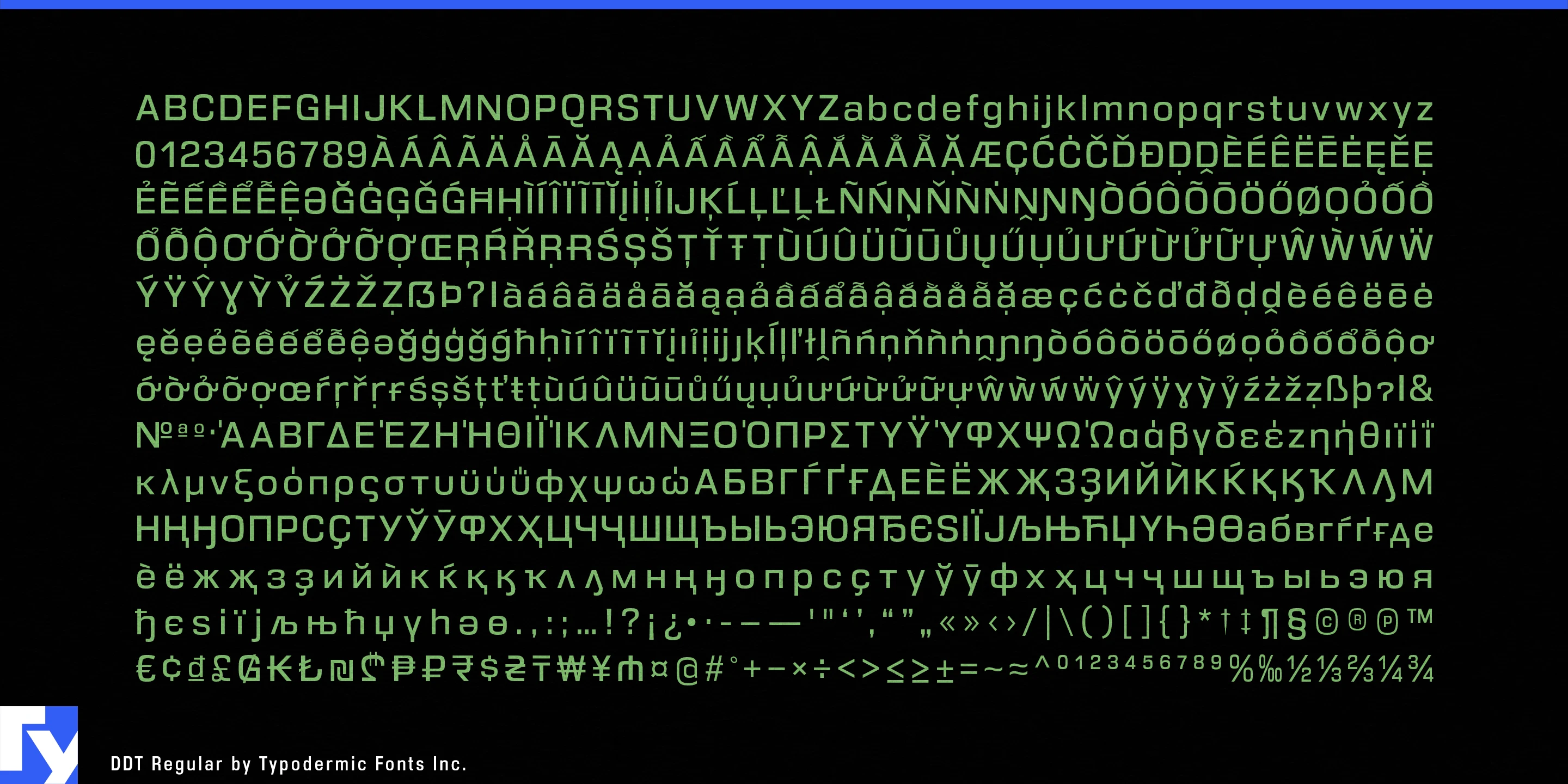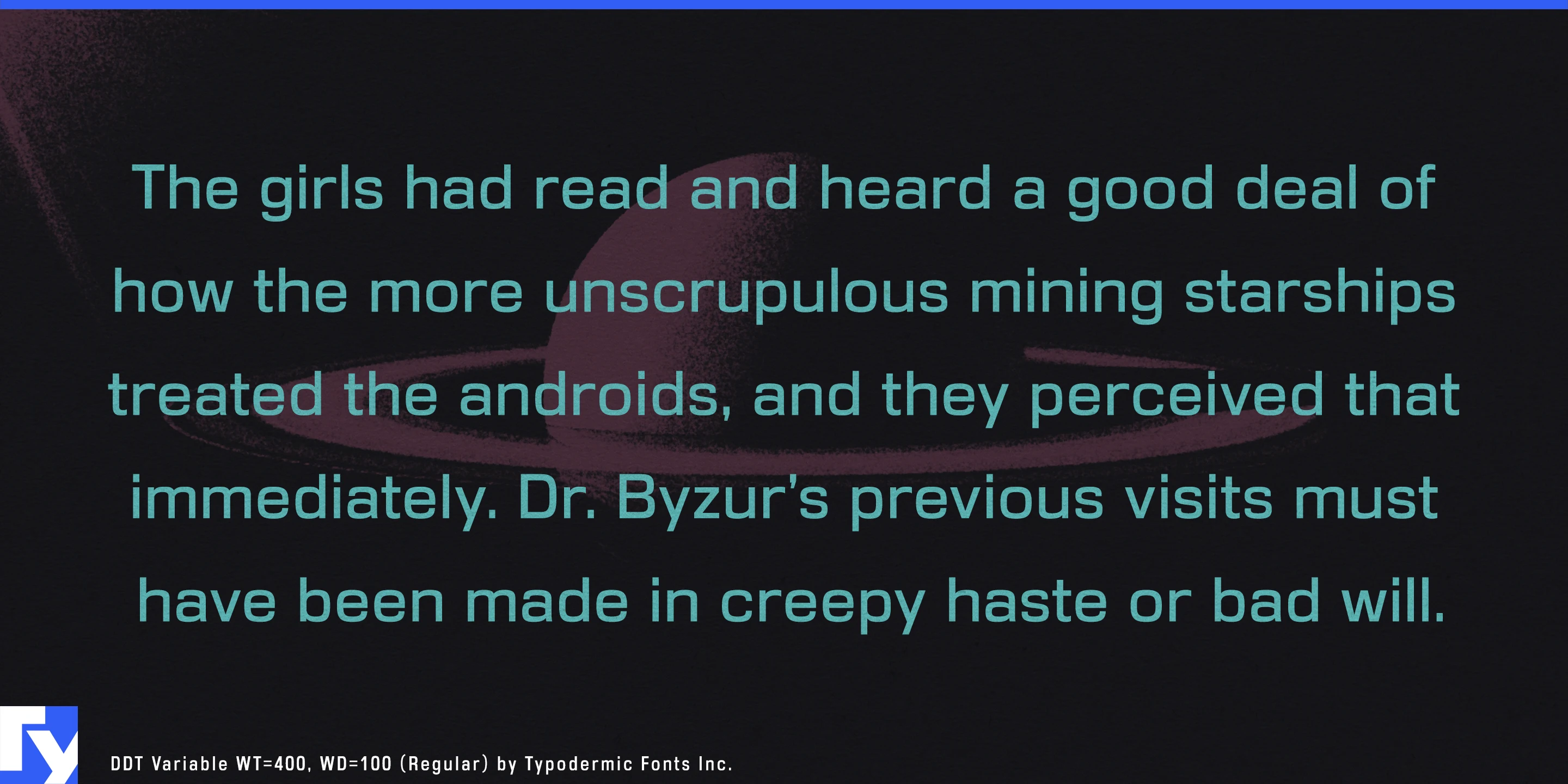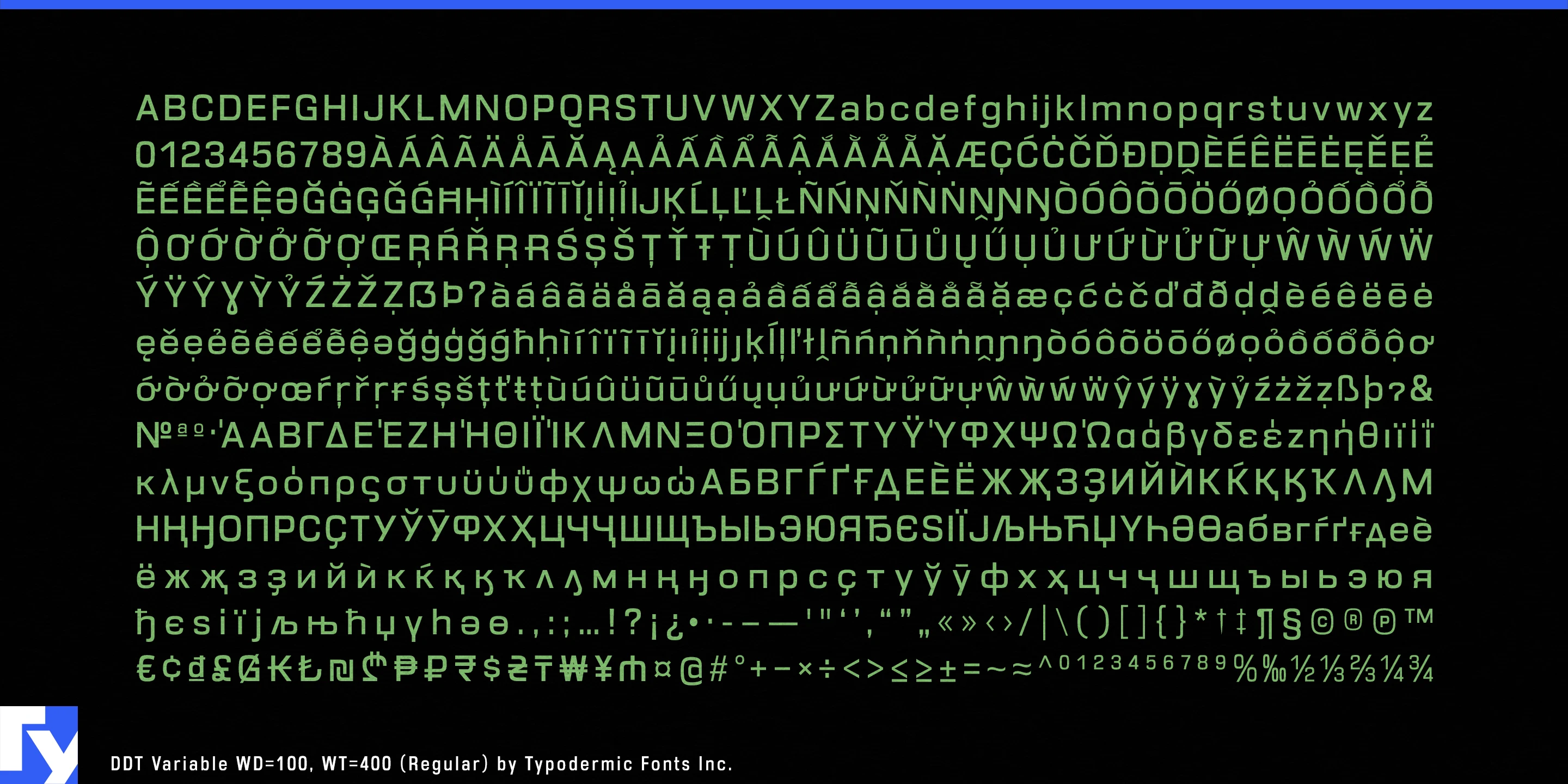
Ddt
Technical branding has an awkward typographic problem. A conventional corporate sans can be practical enough for an entire identity, but it may say very little about engineering or technology. Push too far toward squared futuristic lettering and the character arrives immediately, along with a typeface that can become tiresome in paragraphs, captions, specifications, and everyday communication. Ddt was designed for the territory between those extremes.
Its underlying geometry was developed quite literally between Univers and Eurostile. The capital and lowercase O from each were scanned and overlaid, and a new curve was drawn midway between them. That intermediate superellipse became the foundation of Ddt: engineered enough to establish a technological setting, but conventional enough to keep working after the headline is over.
That balance is particularly useful in aerospace and space technology. Satellite manufacturers, avionics companies, launch-services firms, autonomous-systems developers, and aerospace engineering groups can use Ddt for mission names, exhibition graphics, product families, vehicle graphics, and large technical-marketing displays, then carry the same visual language into explanations, captions, specifications, and corporate communication.
Advanced engineering and precision manufacturing offer similar demands. Robotics, semiconductor equipment, industrial automation, optical systems, measurement hardware, and specialist machinery benefit from typography that feels designed for their world without turning every page into science-fiction scenery. Ddt can move from a trade-show wall or product name into catalogues, diagrams, technical documentation, and supporting text while maintaining a consistent identity.
Scientific institutions provide another natural setting. Research laboratories, observatories, science museums, biotechnology equipment companies, and research programs often need typography that can bridge institutional communication and technical subject matter. Ddt can establish the tone in exhibition titles and program identities, then step down into report covers, diagram labels, captions, and explanatory text.
Three widths make that range practical. Condensed fits information into narrow spaces; Regular handles the everyday work; Extended gives the superelliptical construction more room to become a visual feature. Each width comes in eight weights with matching italics, creating 48 styles for building hierarchy around one design rather than reserving Ddt only for conspicuous technological headlines.
The numeral system is similarly flexible. Monospaced lining figures keep columns and tables aligned; proportional lining figures sit more naturally in display typography; proportional oldstyle figures integrate with running text. A technical catalogue, research report, or information-heavy corporate system can therefore handle data and prose without forcing the same numerical treatment into every context.
Ddt’s advantage is not simply that it looks engineered. It can establish that character at large sizes, then keep doing the less glamorous work that surrounds them.